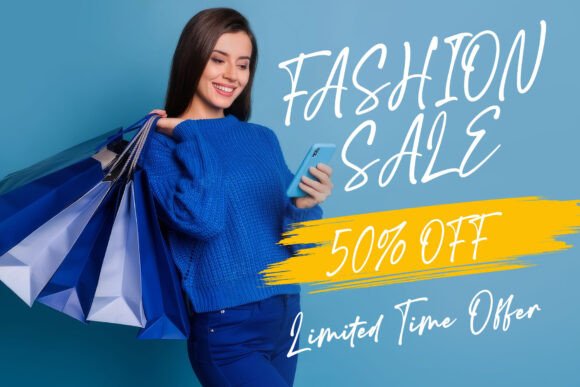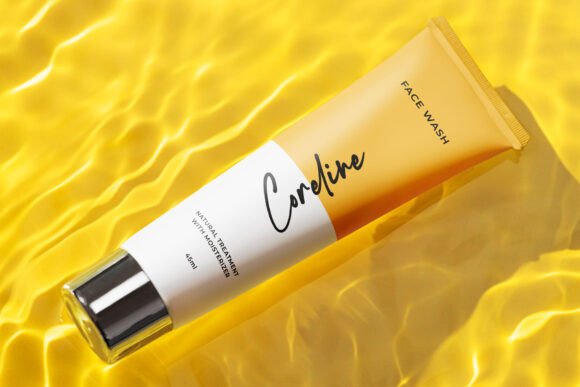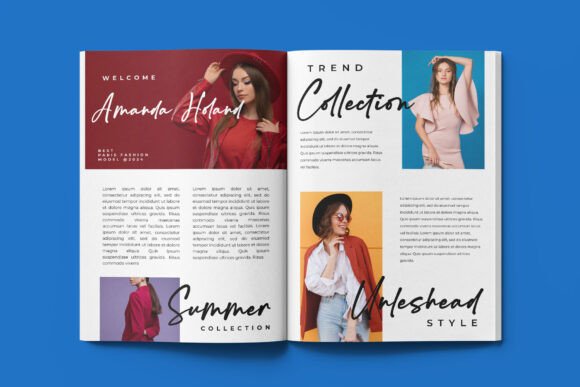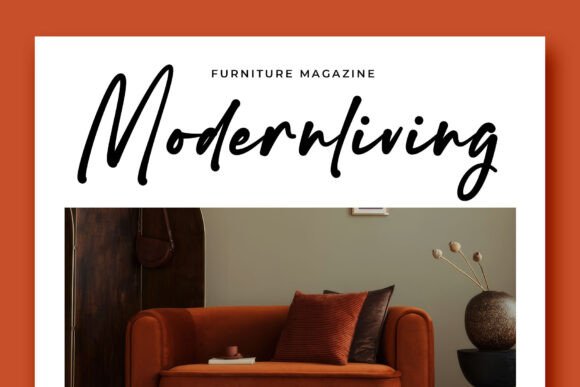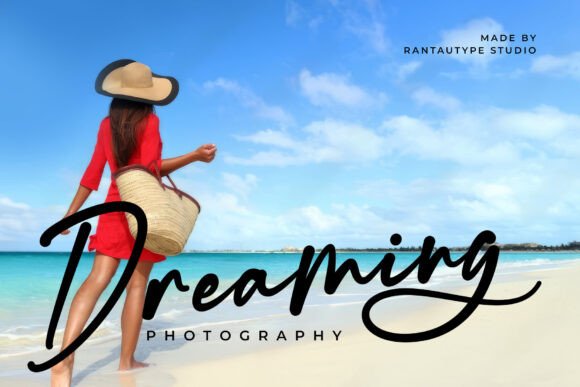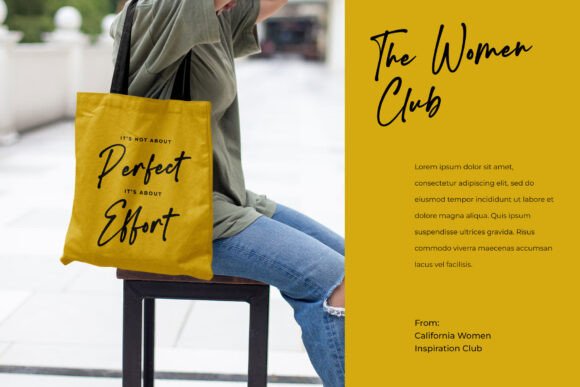
Introduction to Homeyard Font
Homeyard is a modern, handwritten-inspired font that embodies stylish trends.
It was created to evoke a sense of industrial and business branding, offering versatility in various applications Check out the preview, where we showcase how the font looks amazing in different design forms and uses.
Key Features of Homeyard Font
Why Choose Homeyard Font?
Homeyard Font offers exceptional quality and versatility, making it a valuable addition to your design toolkit. Whether you’re creating for personal projects or commercial use, Homeyard Font delivers professional results.